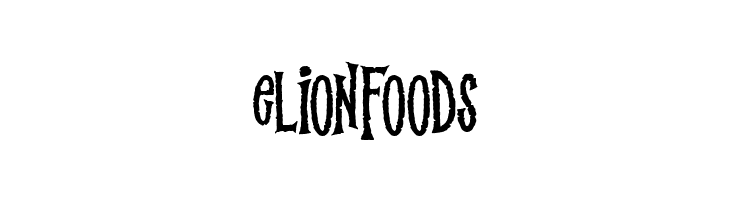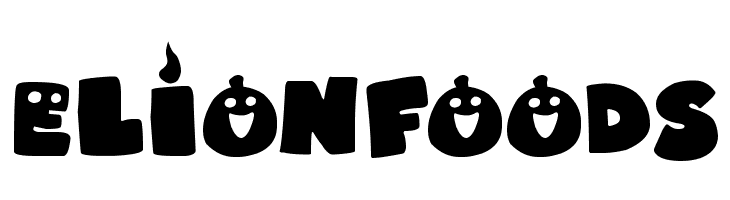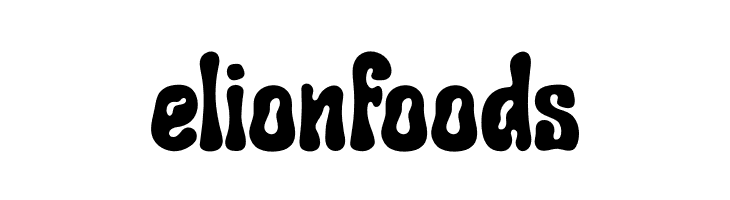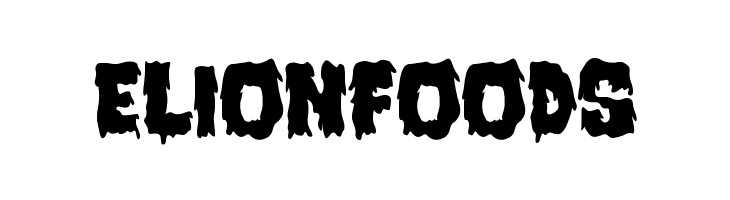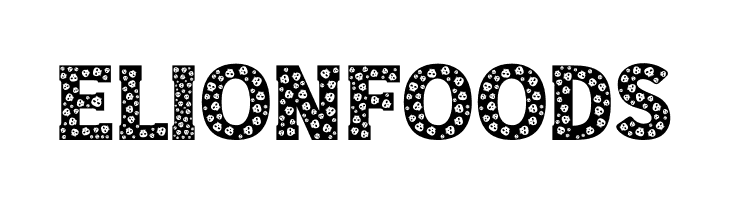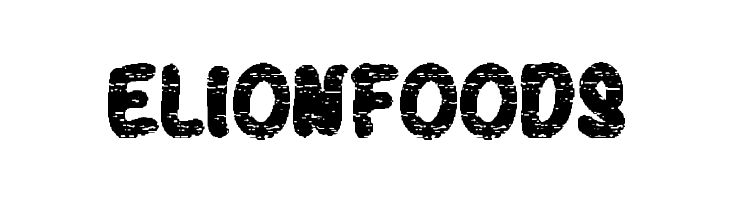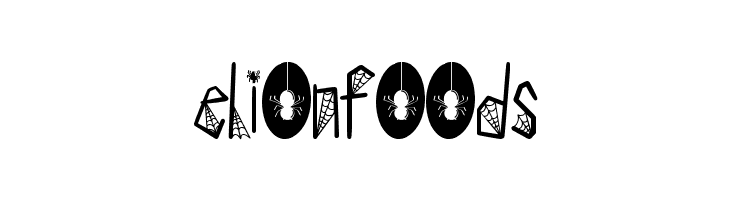
A spooky, jagged font with a playful, hand-drawn style.
A bold, Halloween-themed decorative font with playful, spooky elements.
A bold, playful font with a spooky, hand-drawn appearance.
A bold, horror-themed font with jagged, dripping characters.
An ornate, gothic-style font with intricate details and a spooky vibe.
A bold, playful font with a spooky, Halloween-inspired design.
A spooky, distressed font ideal for haunted themes.
A bold, decorative font filled with skull illustrations, perfect for spooky themes.
A bold, distressed font with a grunge texture, perfect for spooky designs.
A spooky, web-themed decorative font perfect for Halloween designs.